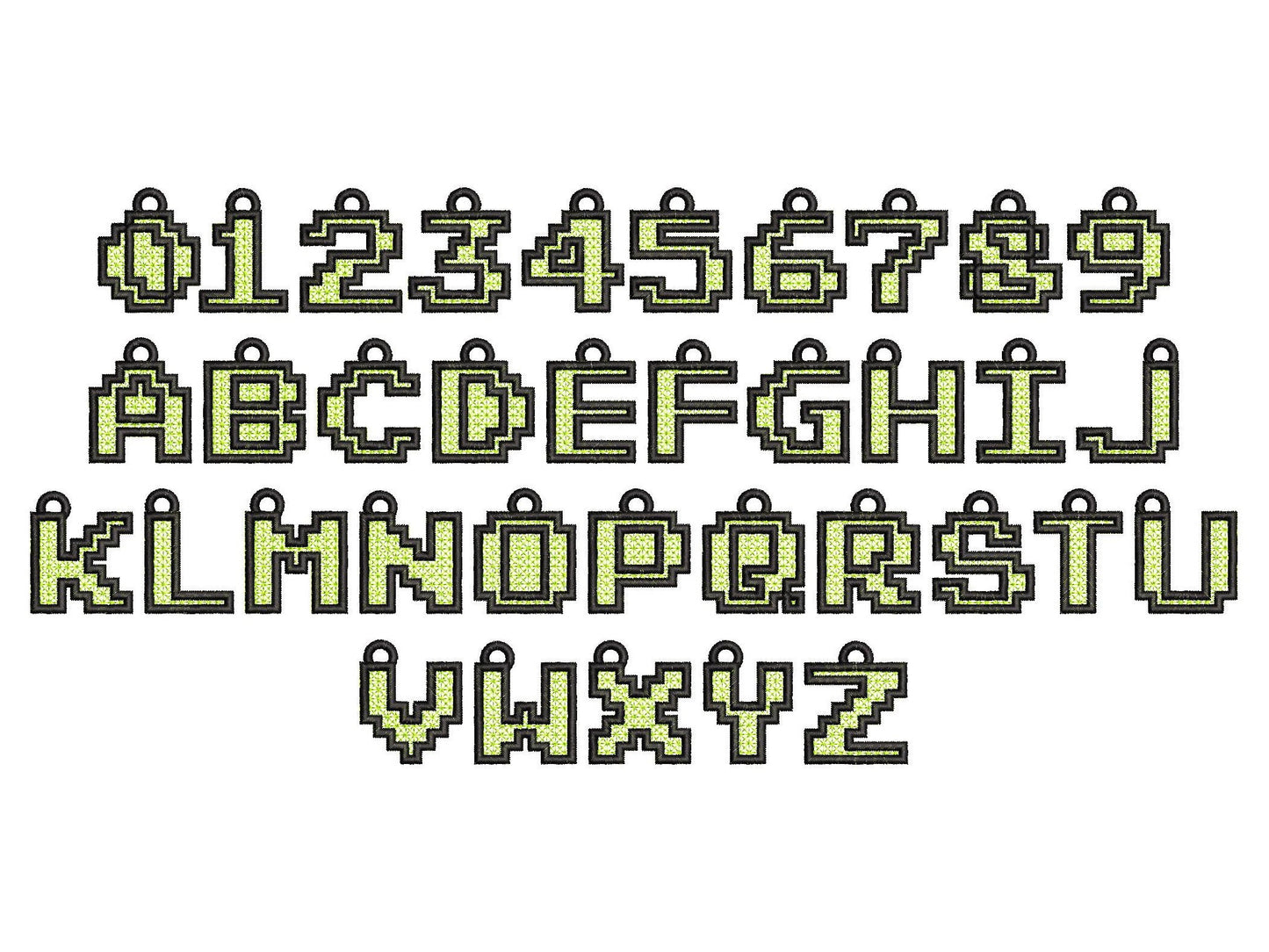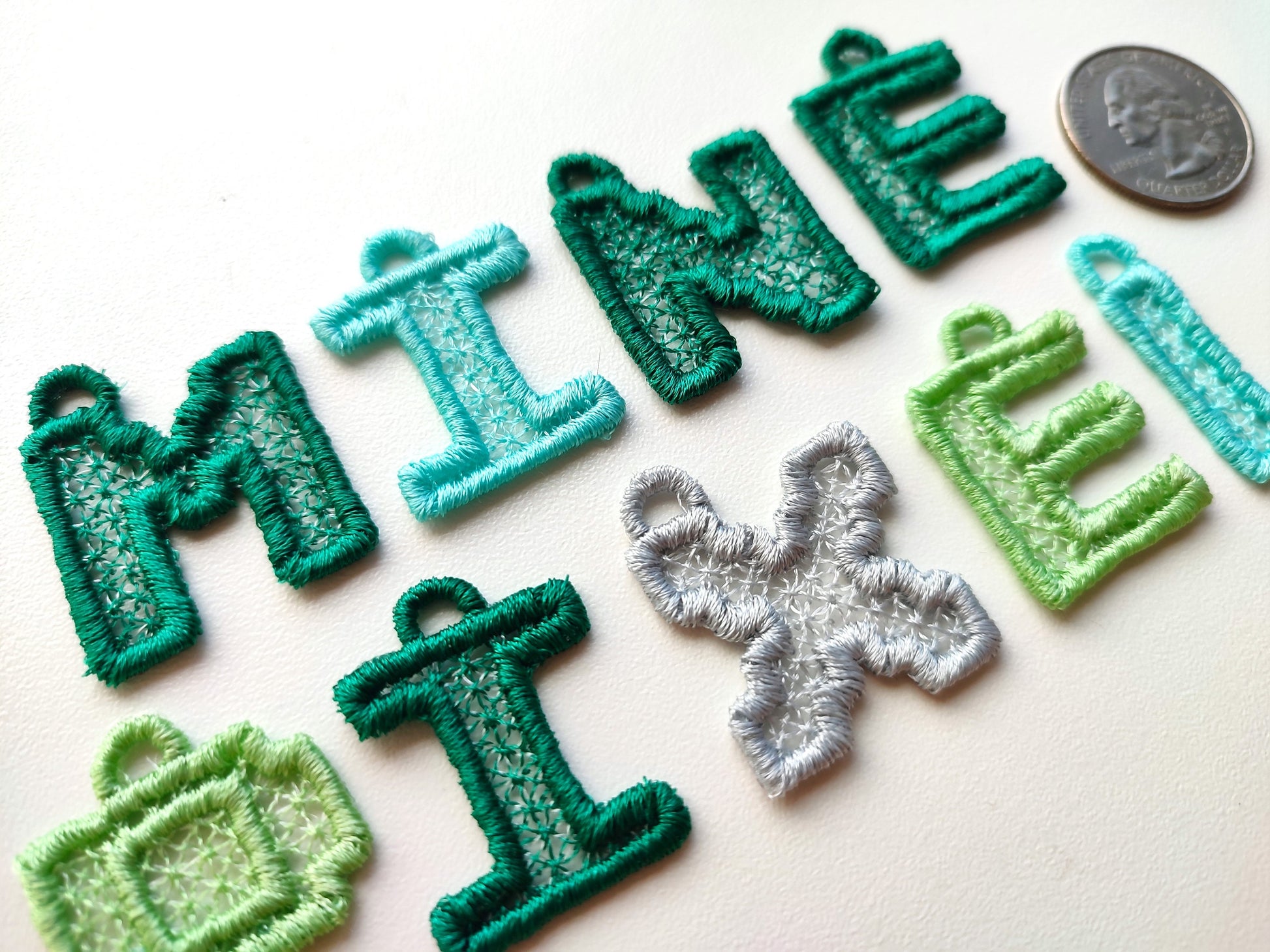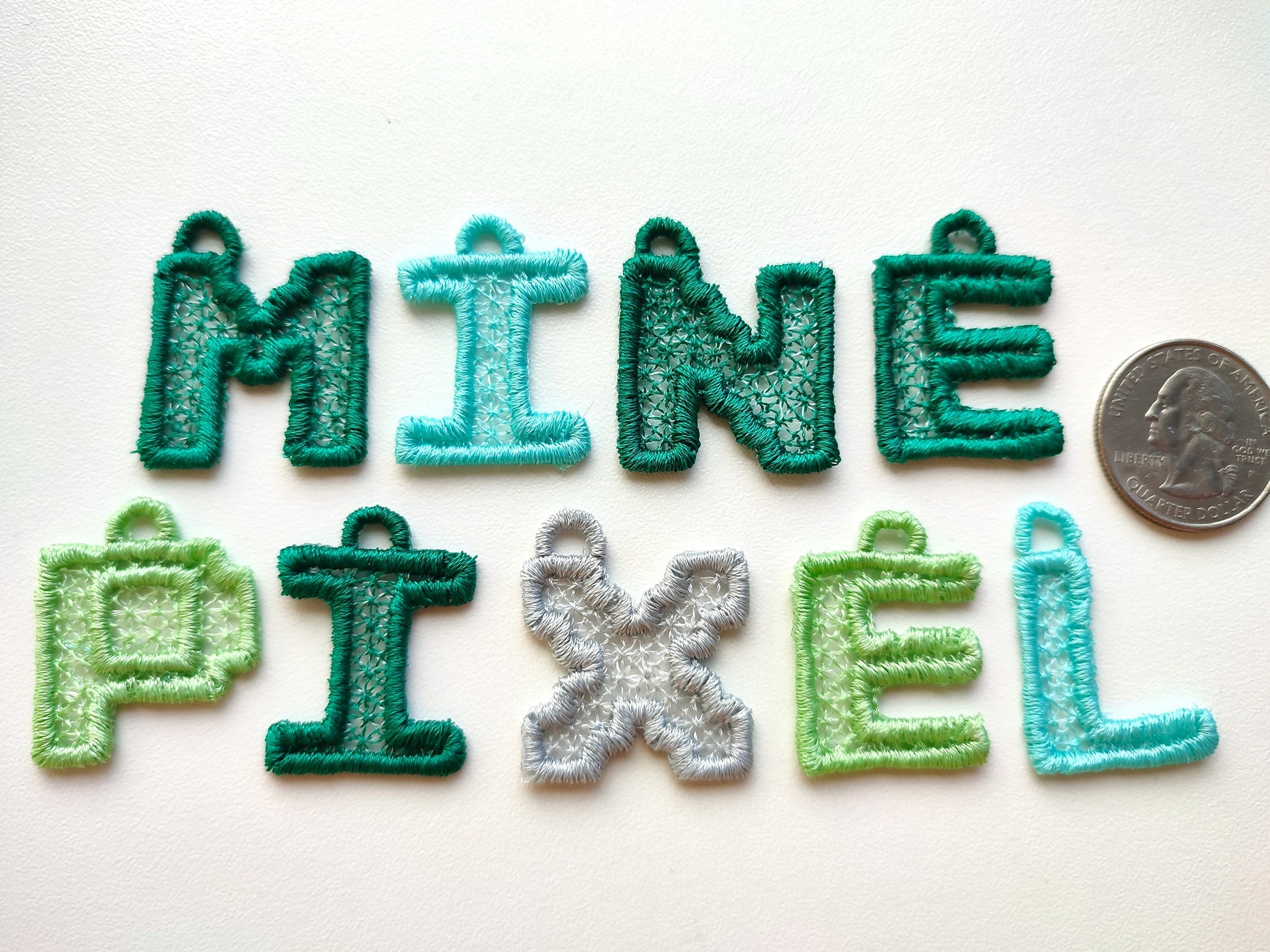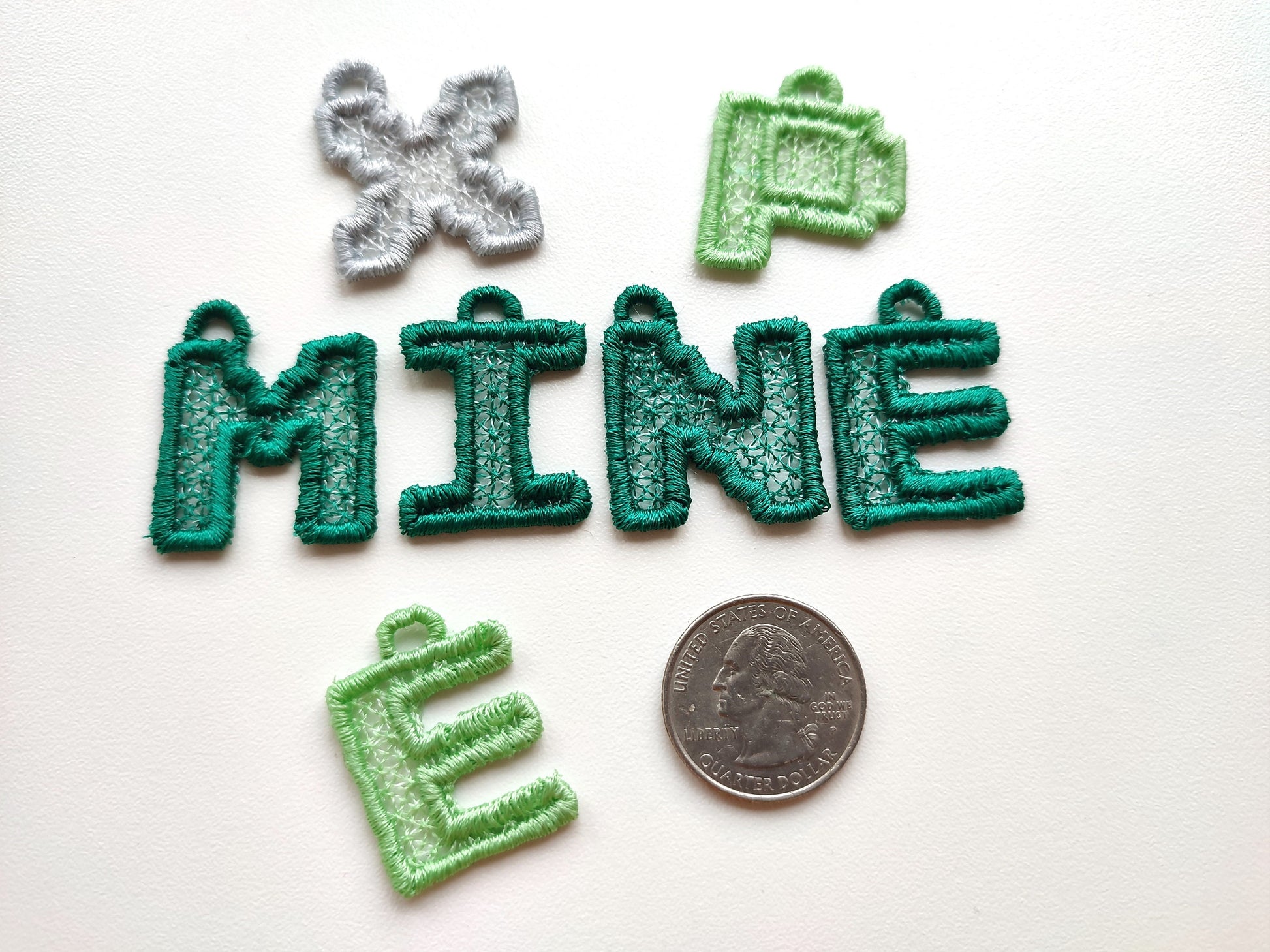
Miner Bricks Pixel Font FSL
Or click to open the linkA pixel brick font in free-standing lace, with a hanging loop on each letter. Fun for boys' gifts, key charms, ornaments and game-themed parties.
Uppercase letters A to Z and numbers 0 to 9 in three sizes: 1, 1.5 and 2 inches. Free-standing lace stitched on wash-away stabilizer; H, K, M, N, U, V, W, X and Y come with one or two loops.
- Pixel brick lace letters A to Z
- Numbers 0 to 9
- 3 sizes: 1, 1.5 and 2 in